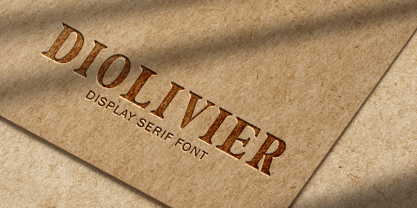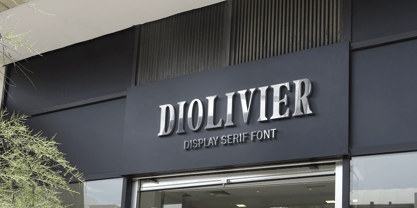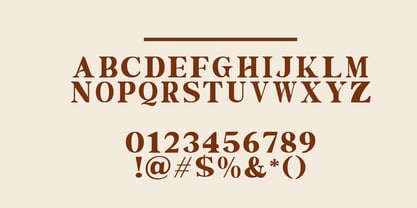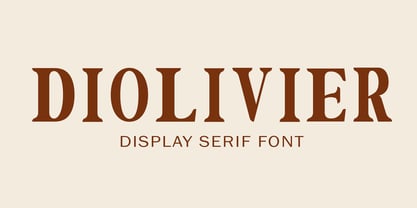
Diolivier
Diolivier is a display serif font designed to make a strong and elegant statement. Its defining characteristics are its sharp, assertive serifs paired with a balanced contrast between thick and thin strokes. This combination creates a visual harmony that feels classic, luxurious, and modern all at once.
Ideal for:
• Branding & Logos: Crafting a premium and unforgettable brand identity.
• Headlines: Commanding attention in magazines, posters, or websites.
• Invitation Design: Adding a formal and classy touch to special events.
• Product Packaging: Elevating a product's image to feel more exclusive.
With Diolivier, your words become more than just text—they become a statement of class.